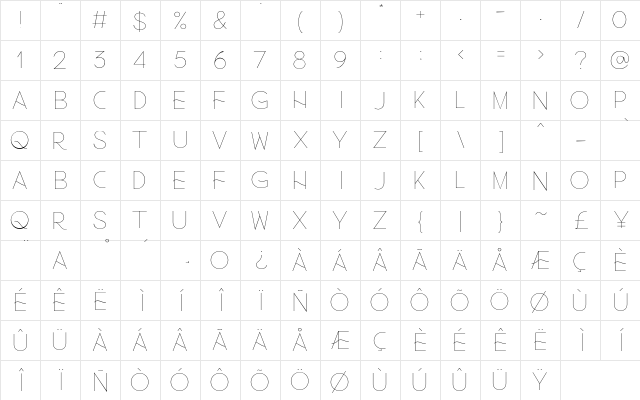
Ch Games Thin
Design Context for Ch Games Typeface
Ch Games takes a measured approach to typography — its balanced proportions and neutral character make it a reliable workhorse for both digital and print work. The delicate stroke weight brings airiness and refinement to layouts.